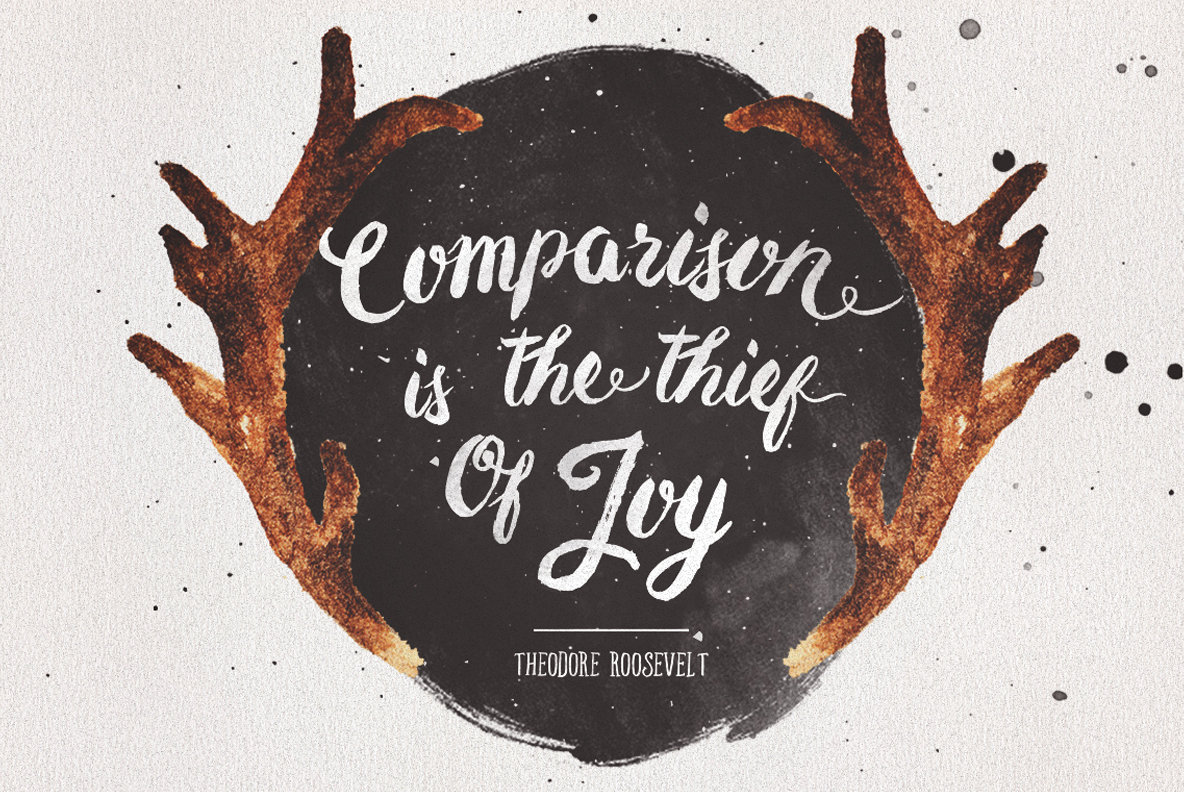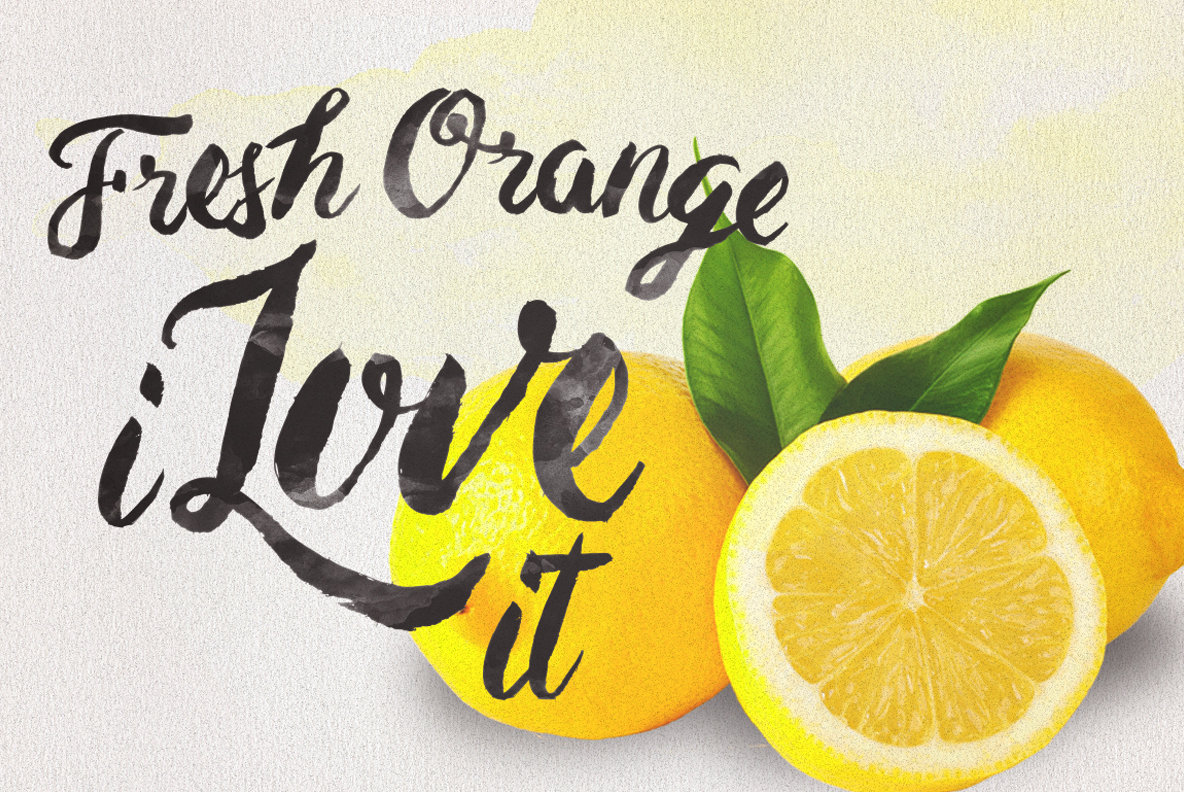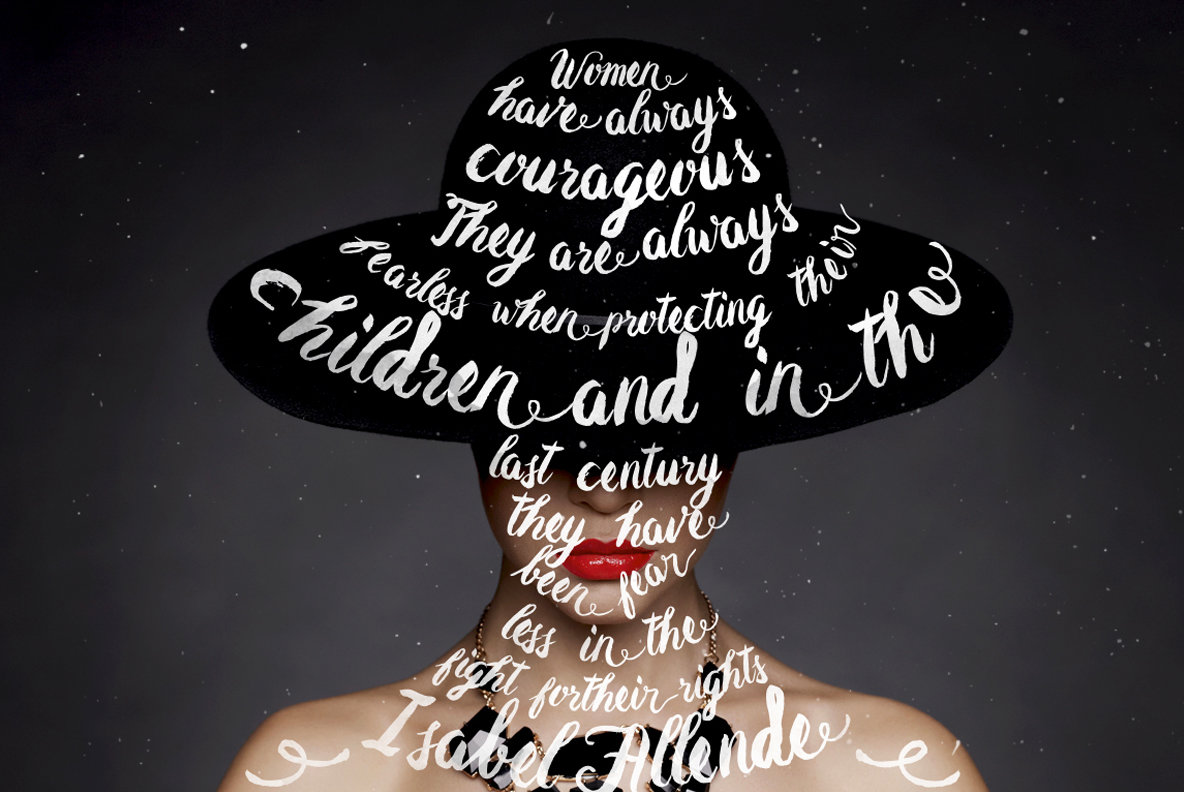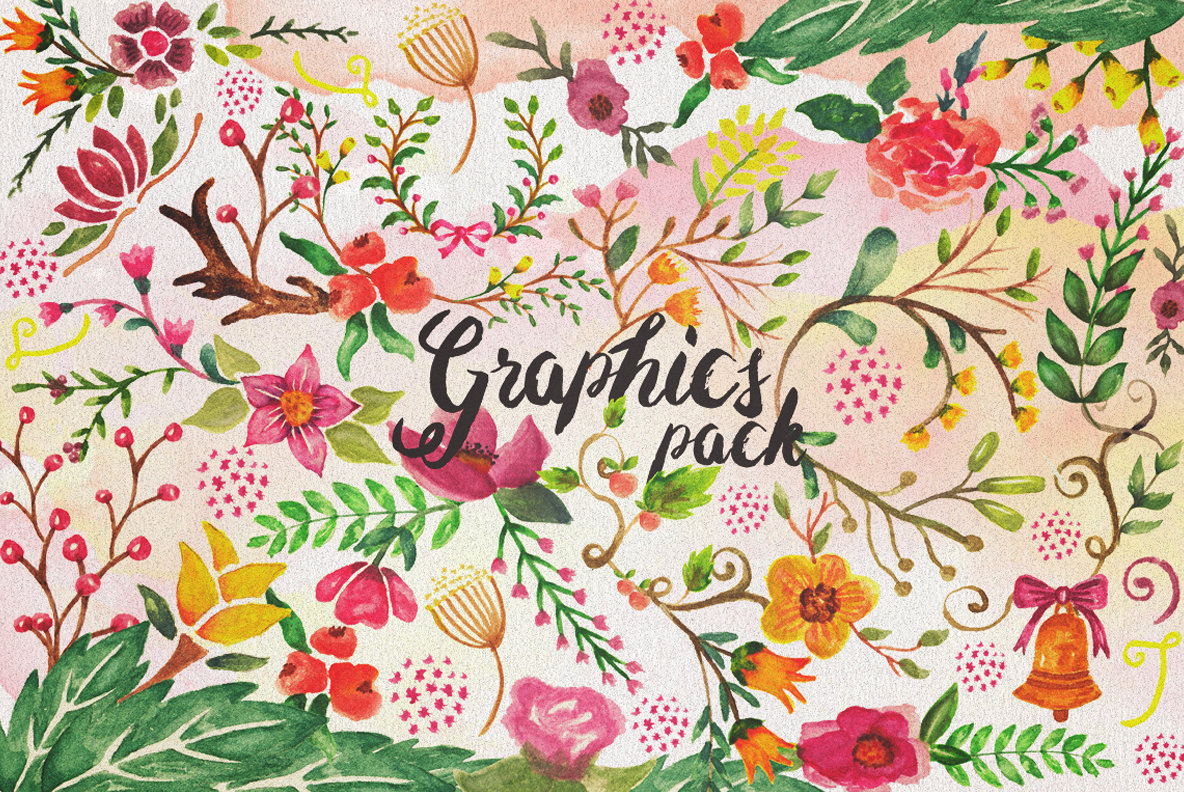
Baurbon Font
Baurbon is a handwritten style script design published by Maghrib. This download also includes a bonus of 40 watercolor image files, saved in pNG format.